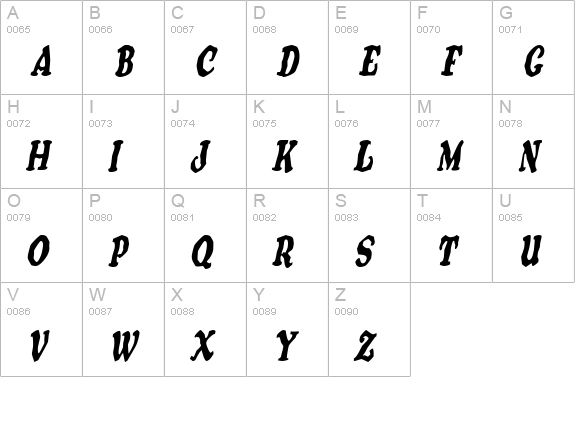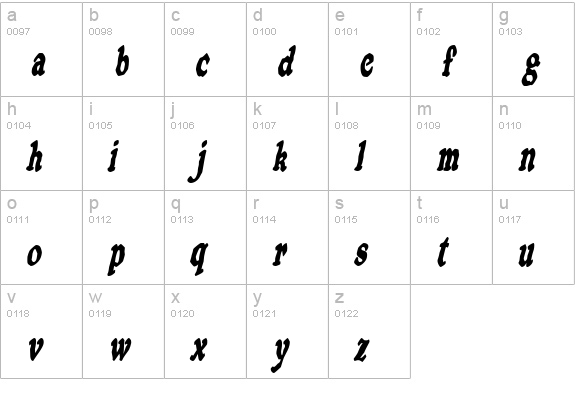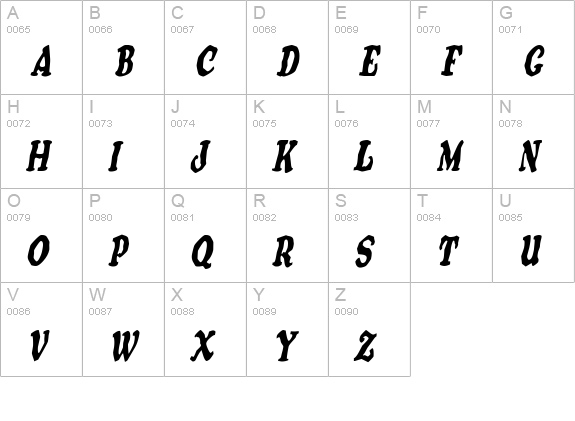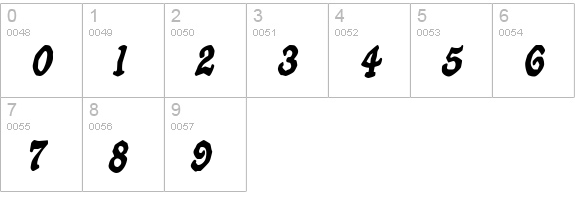
OatmealCondensed Italic is a distinctive, italic variant in the OatmealCondensed typeface family \xE2\x80\x94 well suited to design and typography projects.
OatmealCondensed Italic font offers a sleek and modern design with a touch of sophistication. Its condensed style adds a unique flair to any project, making it perfect for headings, titles, and other prominent text elements. The italicized version of this font brings a sense of elegance and style to your designs, making them stand out from the crowd. Best of all, OatmealCondensed Italic font is completely free to download at FontsMarket.com. This means you can easily access this stylish and versatile font for all your creative projects without any cost. Whether you're working on branding, marketing materials, web design, or any other project, OatmealCondensed Italic font is sure to elevate your work and leave a lasting impression. Download it today and see the difference it can make in your designs!